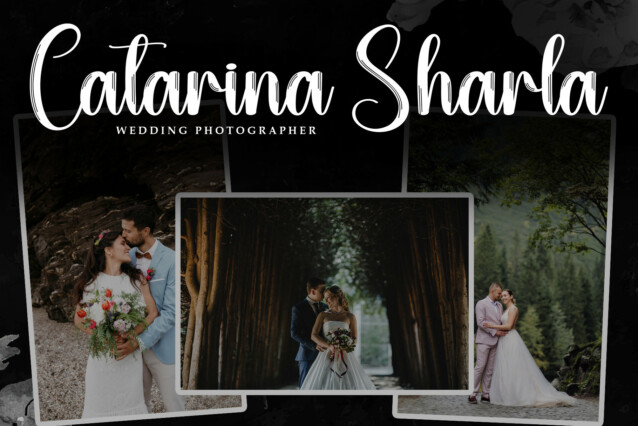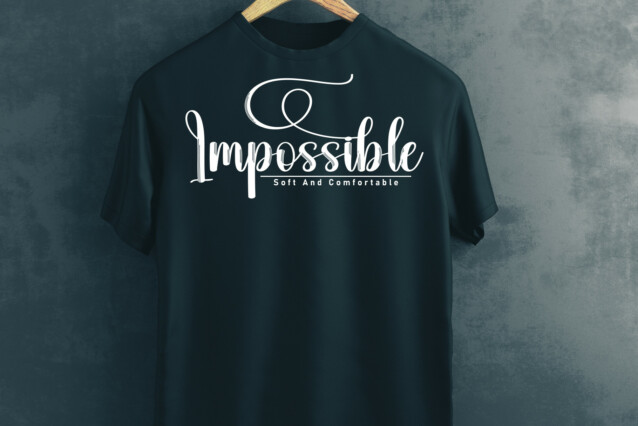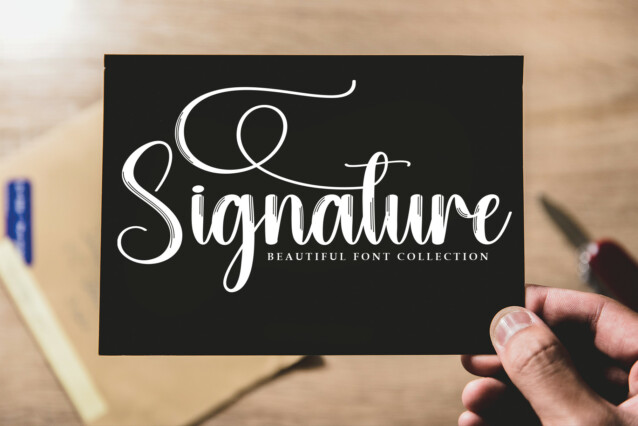
Everyday Script Typeface
Everyday Script Typeface is a bold and elegant script font, perfect for wall displays, wedding invitations, social media post, logos, advertisements, product packaging, product designs, labels, photography, watermarks, invitations, stationery, and any project that requires taste handwriting.